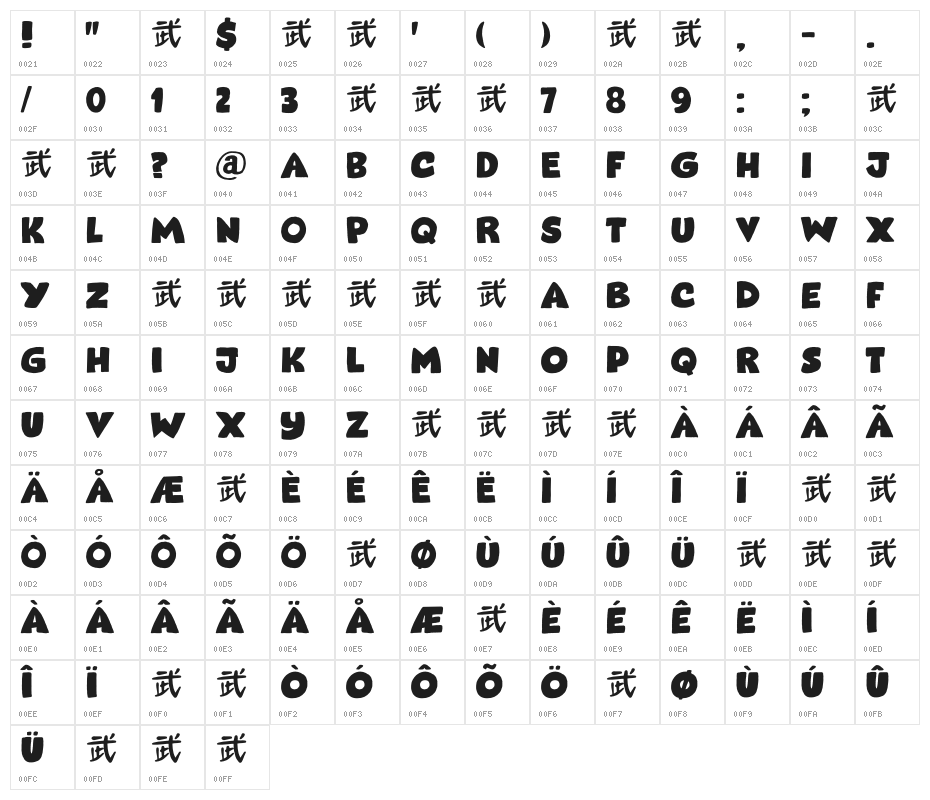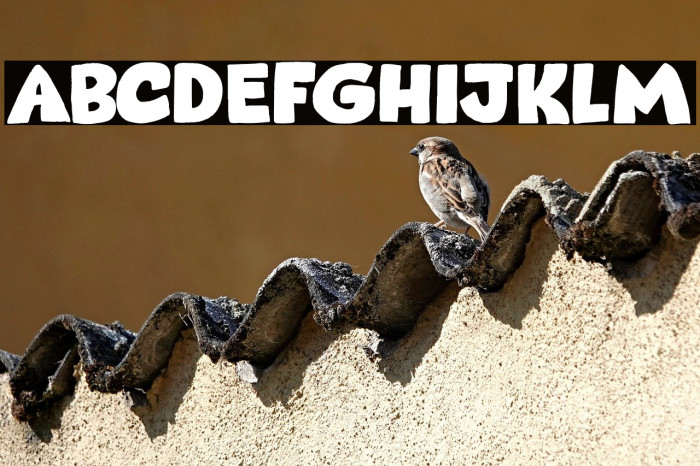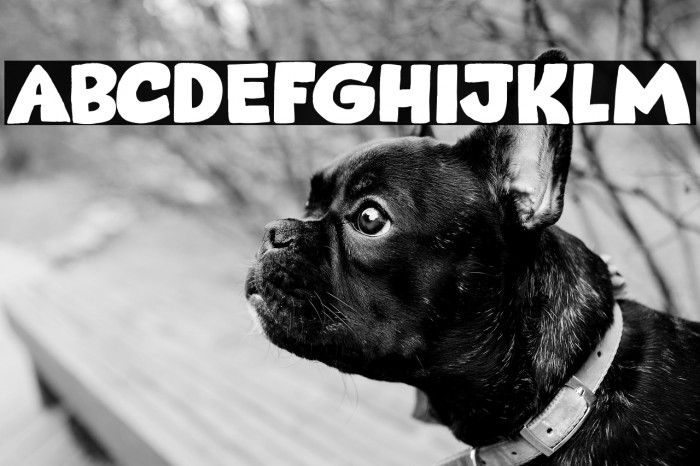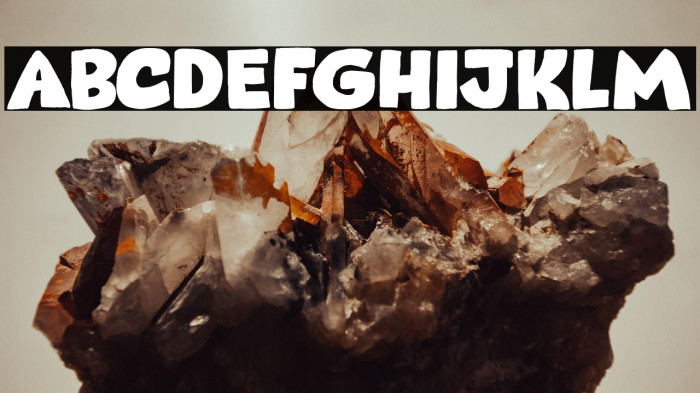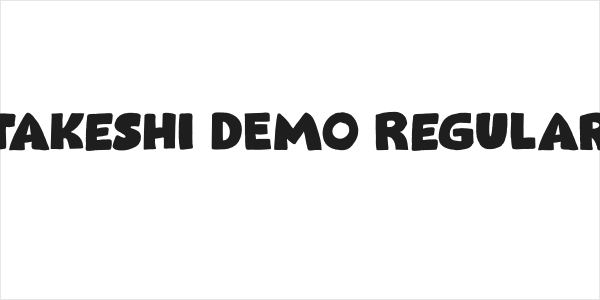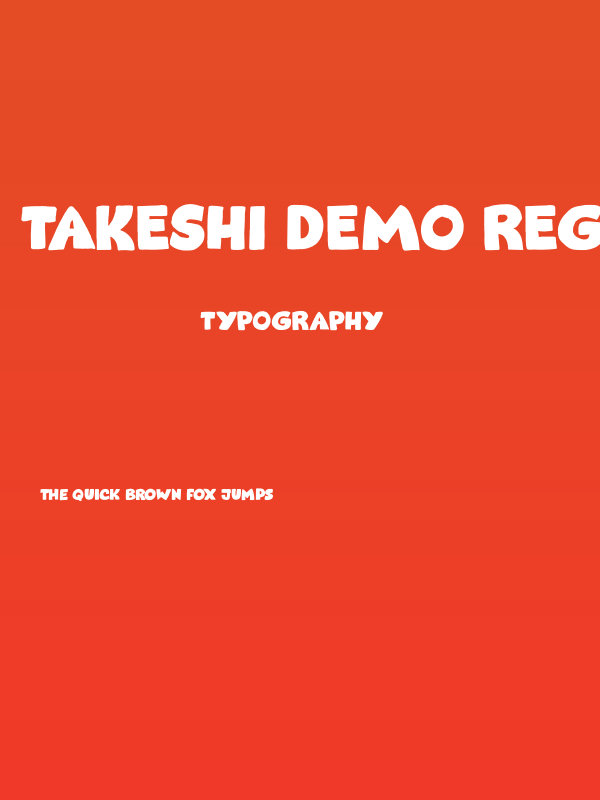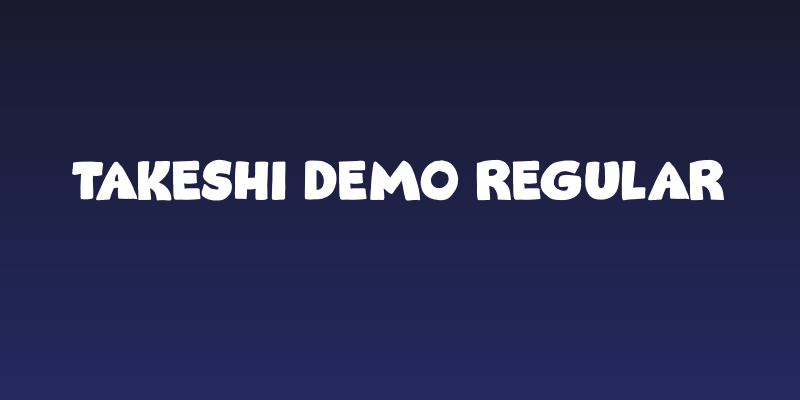
Takeshi DEMO Regular Font
Takeshi DEMO Regular Description
This font features bold, rounded characters with a playful and dynamic appearance. The letters are thick and slightly irregular, giving them a hand-drawn feel. The strokes are consistent in width, contributing to a uniform look across all characters. The overall design is modern and energetic, making it suitable for projects that require a lively and engaging typeface. The numbers and special characters maintain the same bold and rounded style, ensuring consistency throughout the font set.
| Overall Style | Playful, Modern |
| Proposed Projects | Ideal for children's books, comic strips, playful branding, and eye-catching headlines. |